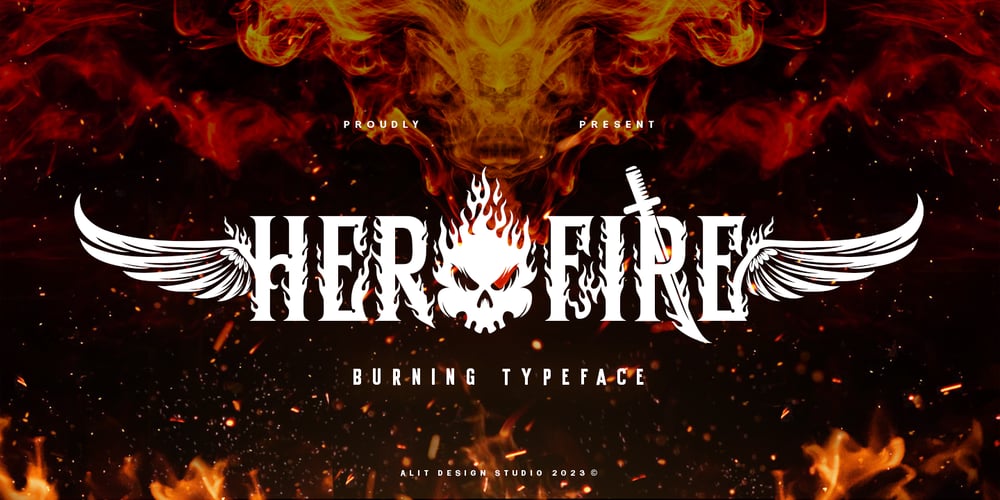
Hero fire Font Family was designed by Alit Suarnegara and published by Alit Design. Hero fire contains 1 styles and family package options. Hero Fire is a dynamic and bold typeface that embodies the essence of a powerful superhero. The characters are meticulously crafted with strong serifs, exuding strength and resilience. The design seamlessly blends classic typography with iconic superhero elements, making it a distinctive and impactful choice for display purposes.Illustrations: The typeface is adorned with illustrations inspired by the superhero universe. Each character is meticulously detailed, featuring elements such as: Fire: Flame motifs gracefully intertwine with certain characters, adding a touch of intensity and energy. Swords: Sharp and sleek sword illustrations are incorporated into select characters, symbolizing heroism and the strength to overcome challenges. Skulls: Subtle skull designs enhance the edginess of the typeface, capturing the essence of a fearless and bold superhero. Shields: Protective shields are cleverly integrated into specific characters, emphasizing the font’s ability to safeguard and endure. Wings: Majestic wing illustrations accompany certain characters, representing the freedom and soaring spirit of a superhero. Characteristics: Bold and Strong: Hero Fire commands attention with its bold and robust characters, making it perfect for headlines and attention-grabbing text. Serif Display: The typeface features classic serifs that add a touch of sophistication, making it suitable for both modern and traditional designs. Versatile Usage: Hero Fire is designed for versatility, lending itself well to various design applications such as posters, comic books, branding, and more. Usage Recommendations: Hero Fire is particularly well-suited for projects that require a strong and impactful display font. Its superhero-themed illustrations make it a perfect choice for comic book titles, movie posters, gaming graphics, and any design where a bold and dynamic aesthetic is desired.Embrace the power of Hero Fire to infuse your designs with a heroic and captivating spirit!